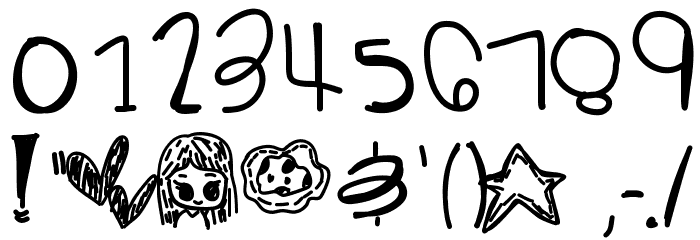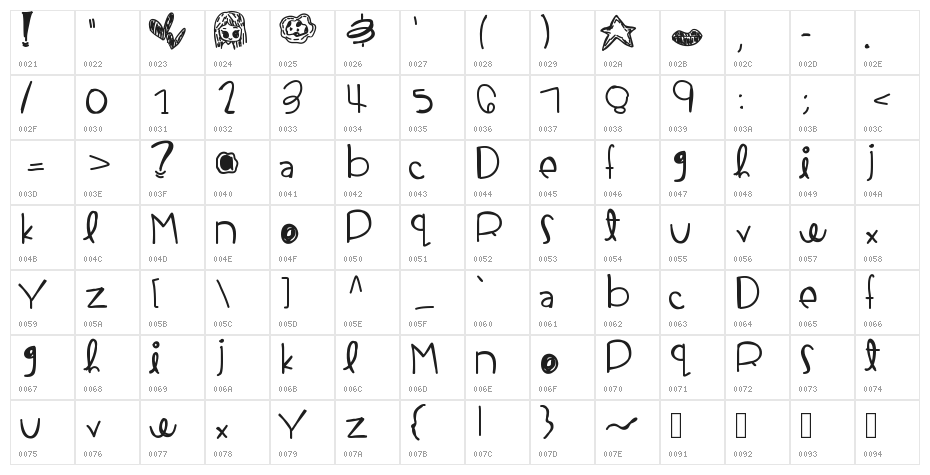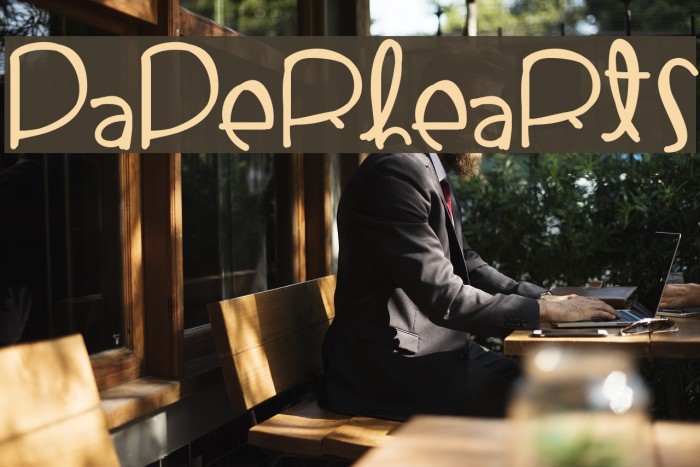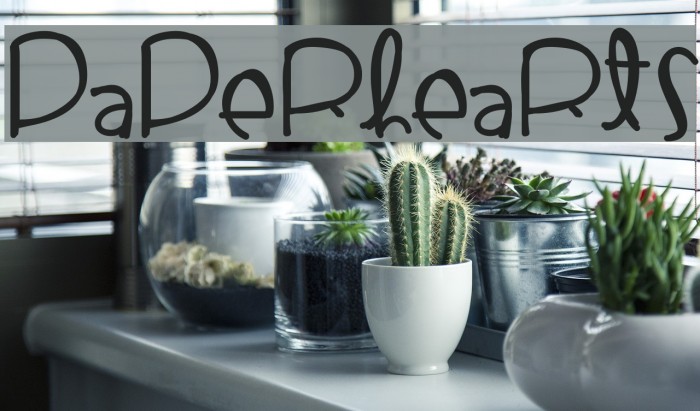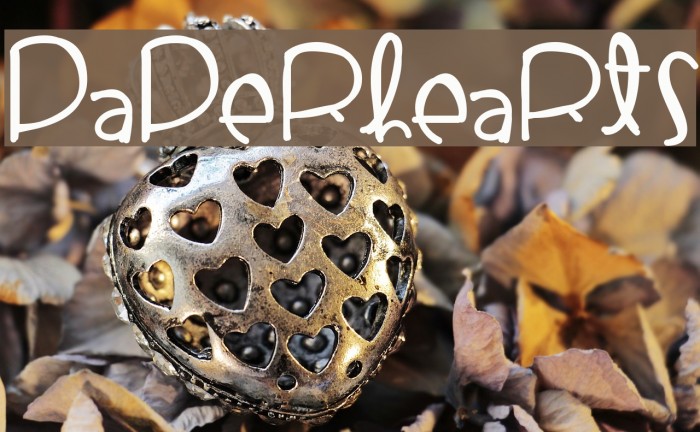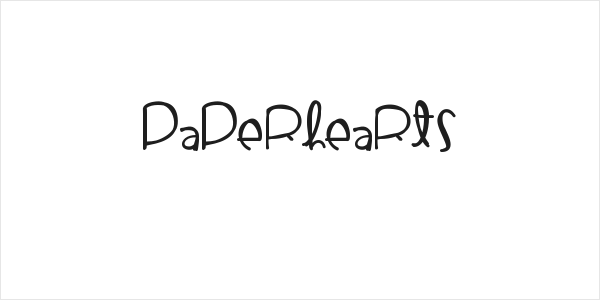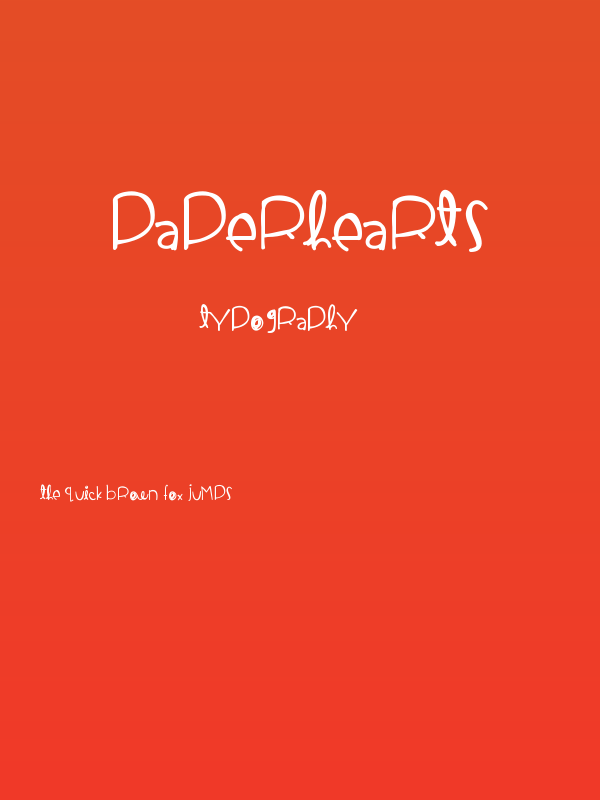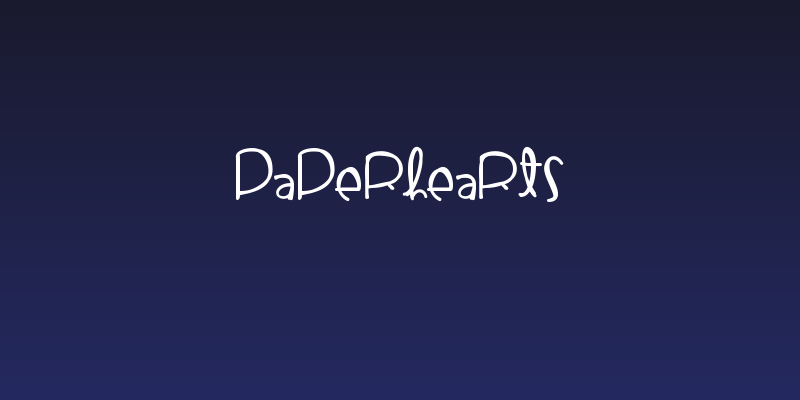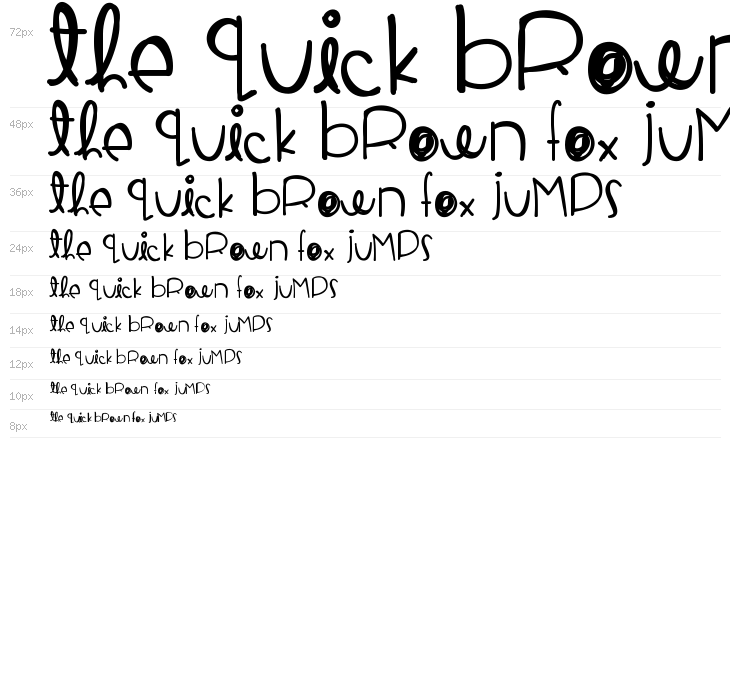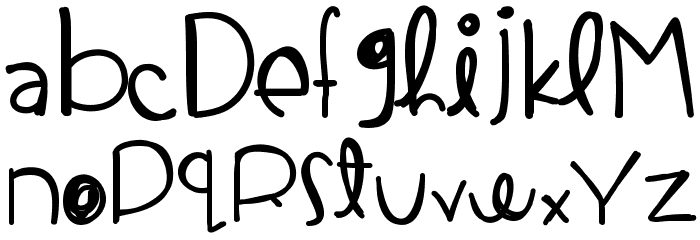
PaperHearts Font
PaperHearts Description
This playful and whimsical font features a handwritten style with a casual and friendly appearance. The letters are uneven and slightly irregular, giving it a charming, informal feel. The strokes vary in thickness, adding a dynamic and lively touch. The characters are rounded with a slight tilt, enhancing the handwritten aesthetic. The font includes a full set of uppercase and lowercase letters, numbers, and a variety of special characters, each maintaining the same playful style. The overall design is approachable and fun, making it suitable for creative and informal projects.
| Overall Style | Whimsical |
| Proposed Projects | Ideal for greeting cards, children's books, playful branding, and DIY projects. |